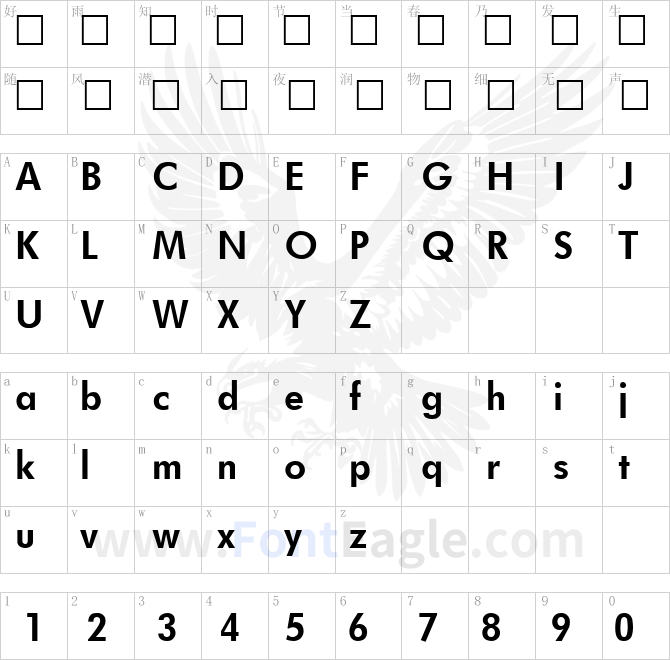
Futurist-Bold is a great font, widely used in graphic design, single-page menu design, poster design and other fields, and is deeply loved by designers.Futurist-Bold download.